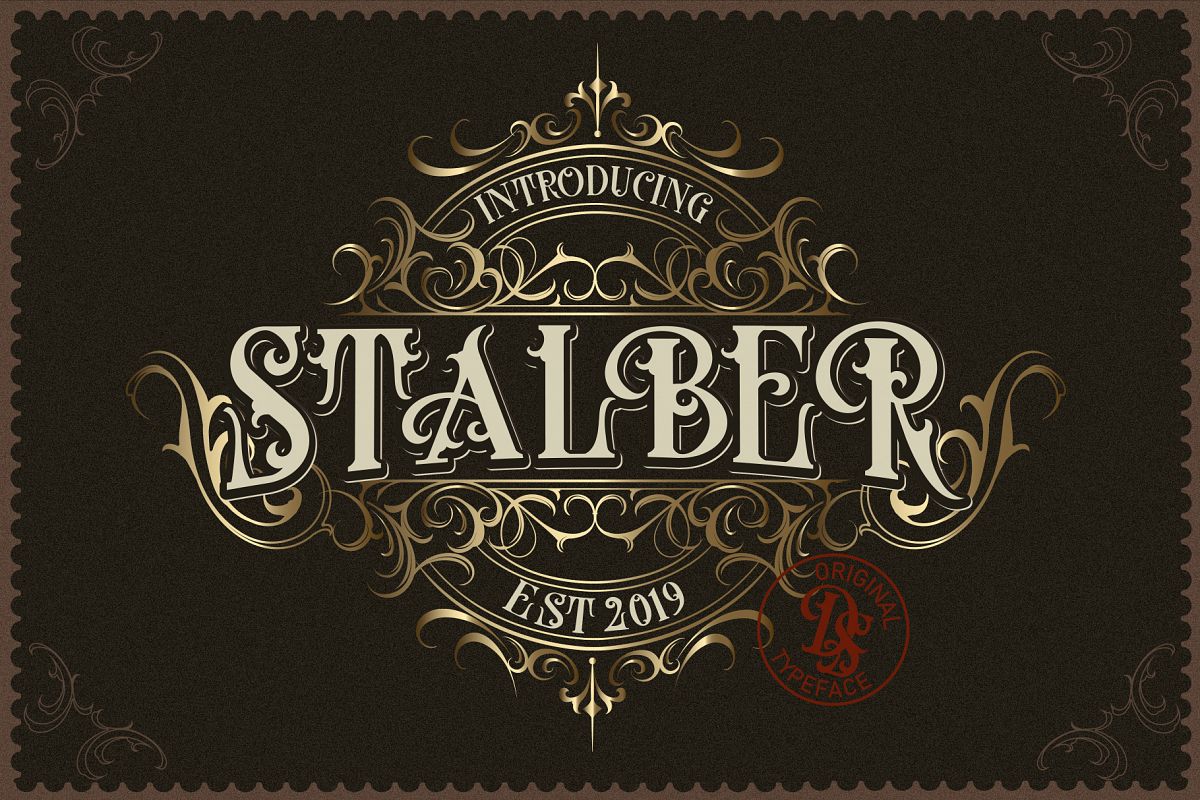
STALBER FONT
stalber ornament
STALBER
Proudly present our new product "STALBER FONT + Extra Ornament ". I create this typeface inspired by vintage signage and decorative shapes.STALBER FONT + Extra Ornament are great and usefull for product logo, poster title, headline, packaging, badge, wedding card logo, clothing brand logo,Vintage design and much more.